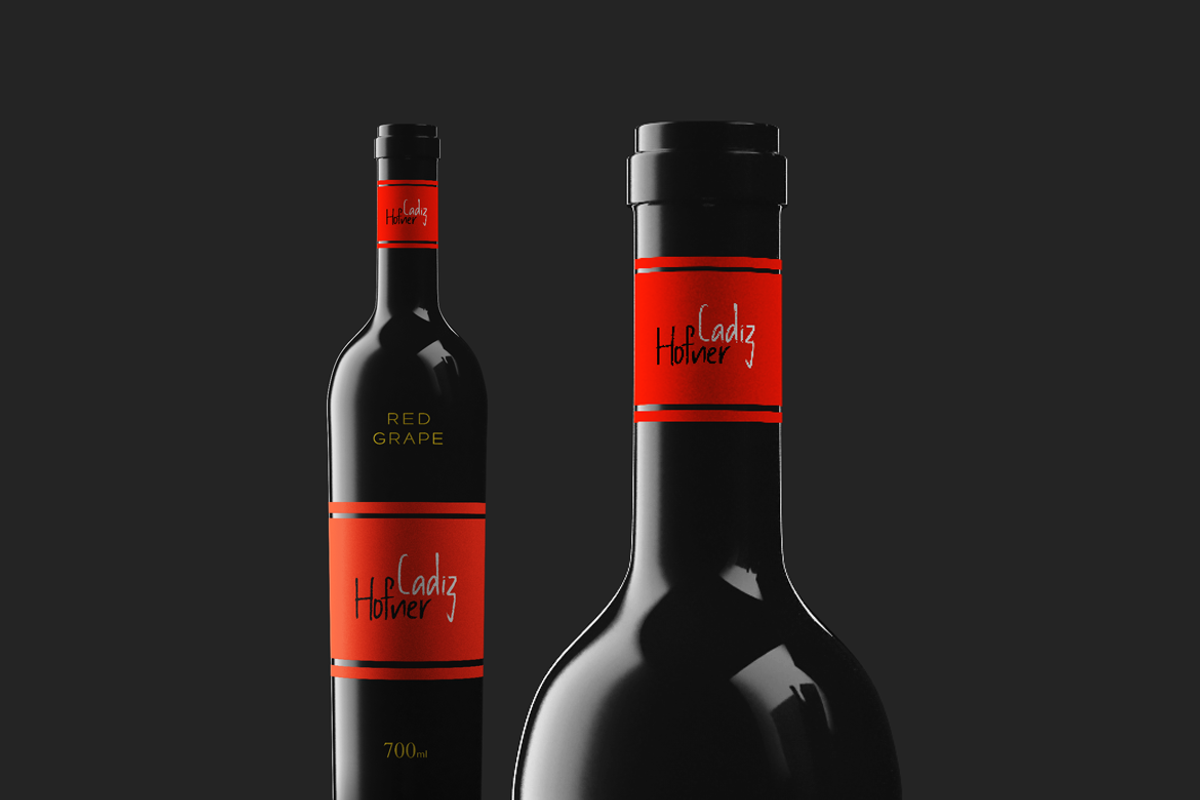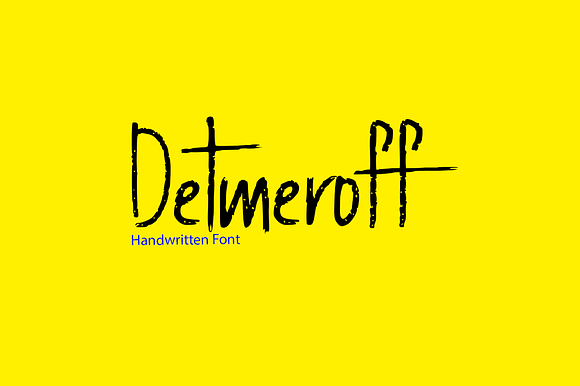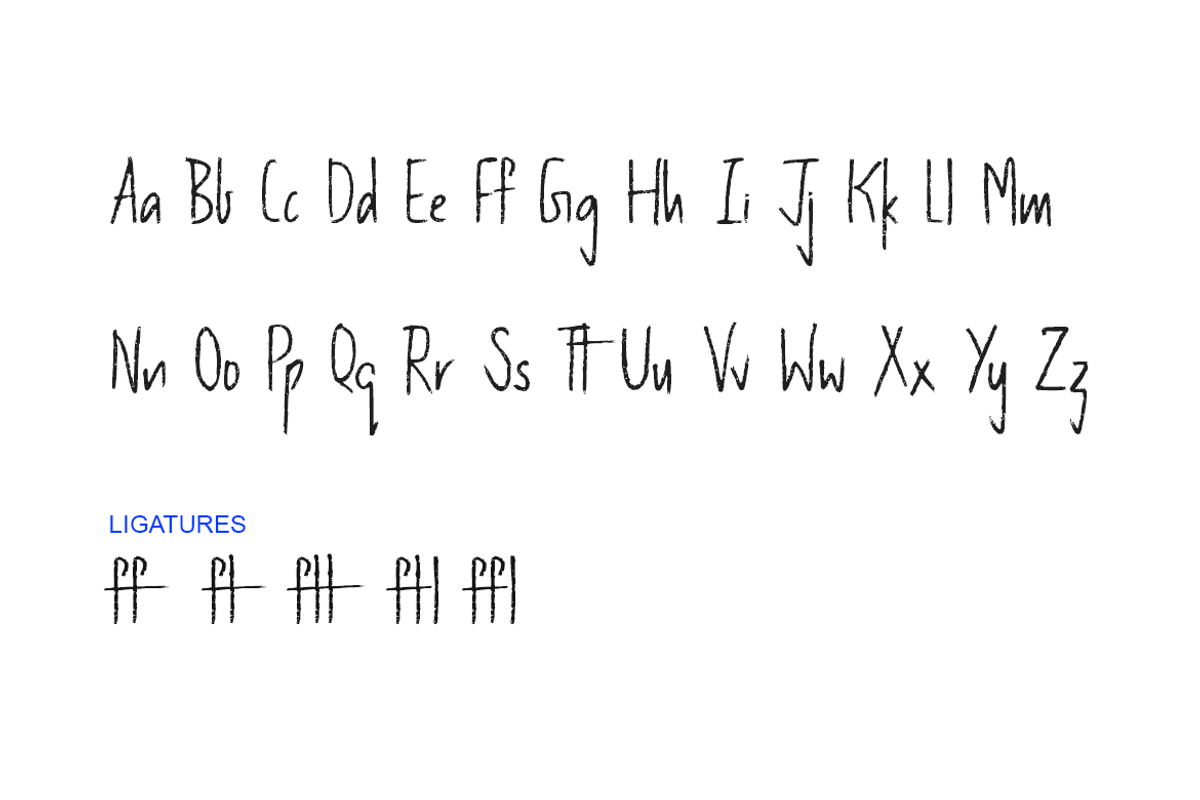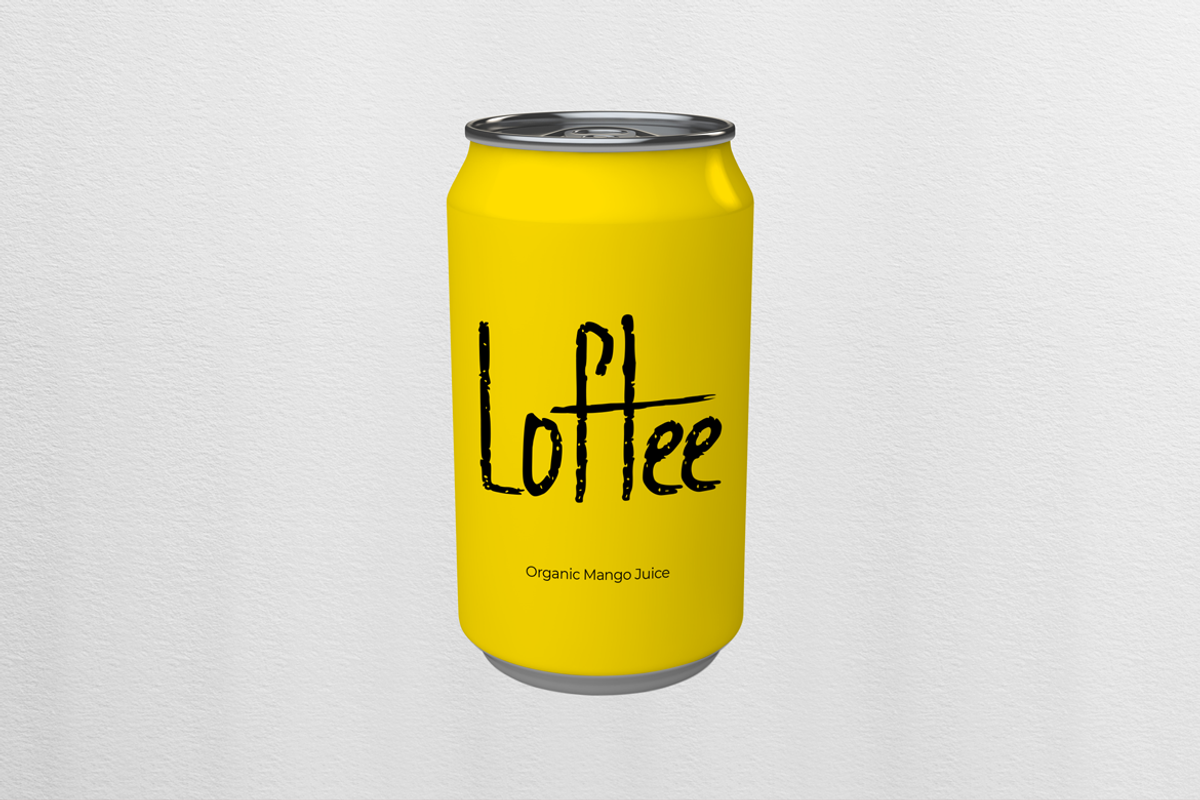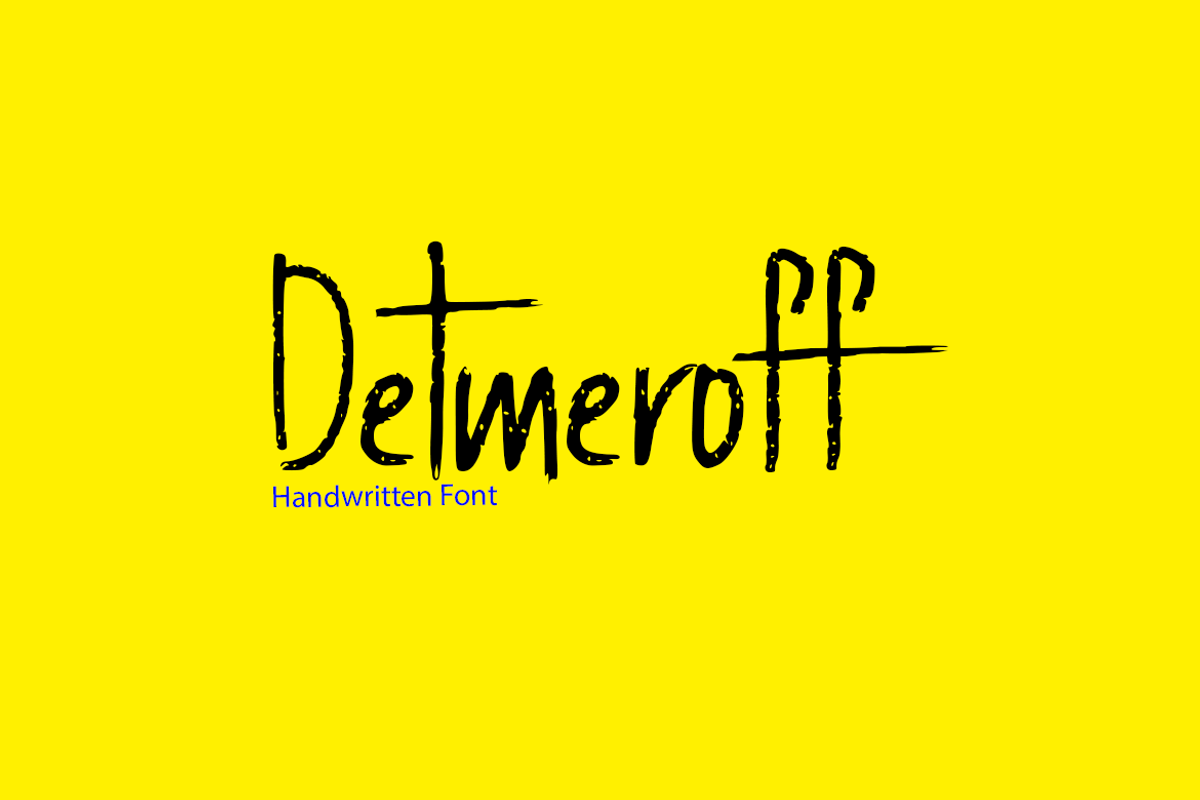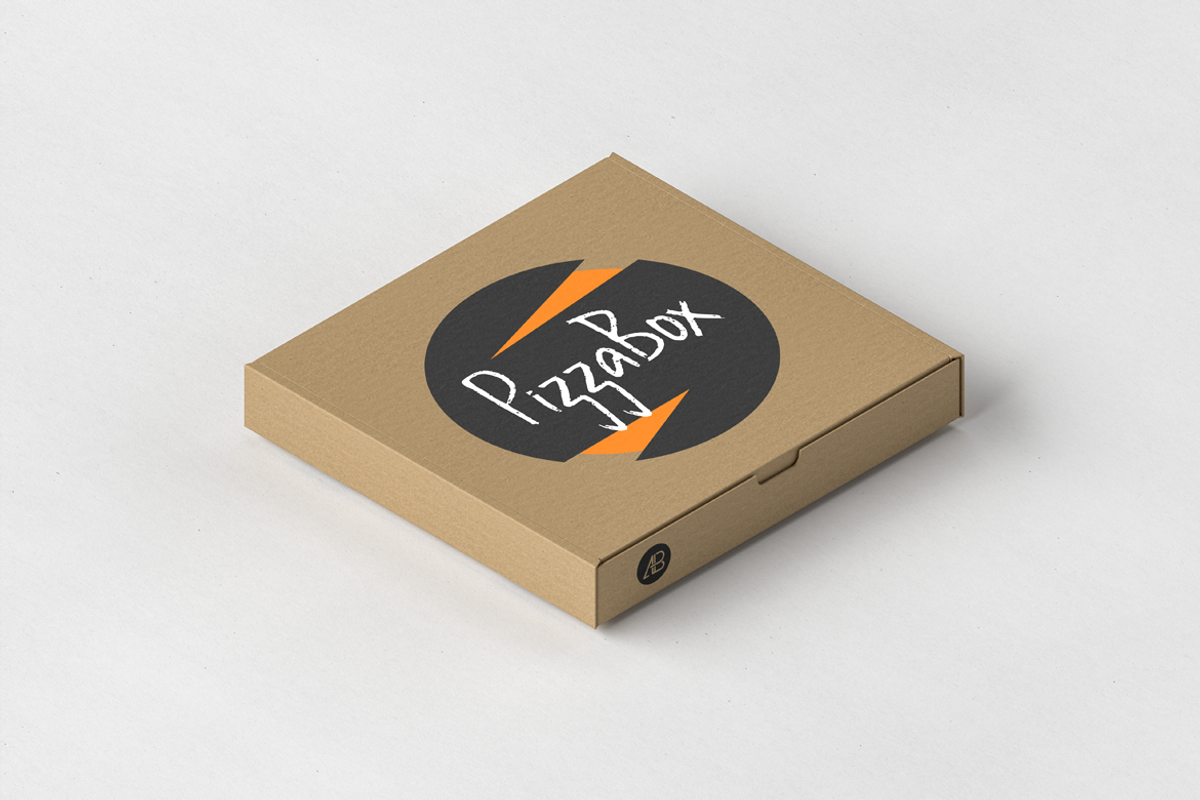
Detmeroff - Handwritten Display Font
Detmeroff is a unique handwritten typeface made with a custom semi-grunge brush inspired from cookies & brownies textures. This font is dedicated for branding, logo type, posters, big texts & display usage. This single weight font is best for creating outstanding logos, promotional content and marketing graphics that can really grab attention from your visitors. Please see the examples shown above to get an idea about the capability of this typeface.
Advanced Kerning & Essential Ligatures:
We have performed advanced, in-depth kerning to make sure the font looks amazing on all possible letter combinations. Also includes some essential ligatures shown in the preview